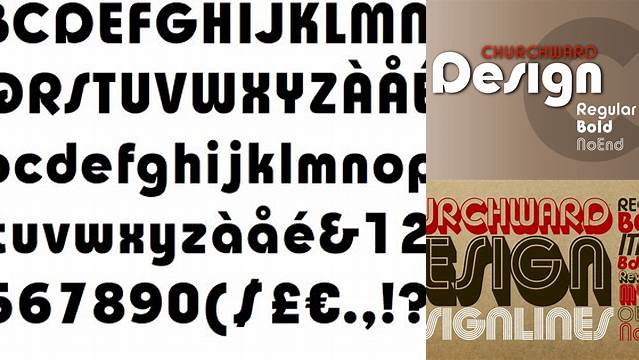
Hey guys! Are you on the hunt for a font that's both bold and beautiful? Look no further! In this comprehensive guide, we're diving deep into the world of Churchward Design Bold font, exploring everything from its history and characteristics to where you can snag it for free and how to use it like a pro. So, buckle up and let's get started!
What is Churchward Design Bold Font?
Churchward Design Bold is more than just a font; it's a statement. This typeface, known for its strong, clean lines and distinctive character, is a favorite among designers for its versatility and readability. Whether you're working on branding, posters, or even web design, Churchward Design Bold can add a touch of elegance and authority to your projects. Its unique blend of classic and modern elements makes it a timeless choice for any creative endeavor. Think of it as that reliable friend who always looks good, no matter the occasion. This bold iteration amplifies its impact, making it perfect for headlines and titles that need to grab attention. The robust letterforms ensure clarity even at a distance, which is crucial for effective communication.
History and Inspiration Behind Churchward Design Bold
The story behind any font often adds to its allure, and Churchward Design Bold is no exception. Understanding the font's origins can give you a deeper appreciation for its design and how to best use it. This typeface has roots in a rich heritage, drawing inspiration from both traditional calligraphy and modern design principles. The font's creator meticulously crafted each letter to ensure a harmonious balance between form and function. Knowing this, you can better understand why it has such a timeless appeal. It’s not just about aesthetics; it’s about the craftsmanship and the vision that went into its creation. Imagine the countless hours spent perfecting each curve and line – that dedication is what makes Churchward Design Bold so special.
Key Characteristics of the Churchward Design Bold Font
So, what exactly makes Churchward Design Bold stand out from the crowd? Let's break down its key characteristics. One of the most notable features is its boldness, which lends a commanding presence to any text. The clean lines and sharp edges provide a modern feel, while subtle curves add a touch of sophistication. This font is designed for maximum readability, ensuring that your message comes across loud and clear. The consistent letter spacing and balanced proportions contribute to its overall harmony, making it a pleasure to read. Think of it as a well-tailored suit – everything fits perfectly, creating a polished and professional look. Whether you're designing a logo or writing a headline, Churchward Design Bold's distinct personality will make your words shine.
Churchward Design Bold vs. Other Bold Fonts
In the vast sea of bold fonts, how does Churchward Design Bold stack up against the competition? It's essential to understand its unique strengths to make the best choice for your project. Many bold fonts lean towards being either overly aggressive or too generic, but Churchward Design Bold strikes a perfect balance. Its distinctive character sets it apart from standard bold fonts, offering a unique blend of elegance and power. Compared to fonts like Arial Bold or Helvetica Bold, Churchward Design Bold has a more refined and sophisticated feel. It doesn't just shout; it speaks with authority and style. Consider it the difference between a simple handshake and a warm embrace – both are greetings, but one leaves a more lasting impression.
Unique Features That Set Churchward Design Bold Apart
What are the specific features that make Churchward Design Bold a standout choice? For starters, its carefully crafted letterforms possess a subtle artistic flair that’s often missing in other bold fonts. The slight variations in stroke weight and the gentle curves give it a human touch, making it feel less mechanical and more organic. This is especially important for projects where you want to convey a sense of warmth and authenticity. Unlike some overly stylized fonts, Churchward Design Bold maintains excellent readability, even at smaller sizes. This makes it a versatile option for both print and digital media. Think of it as the perfect balance between form and function – beautiful to look at, but also practical and easy to use.
Comparison with Similar Bold Typefaces
Let's compare Churchward Design Bold with some of its closest relatives in the font family. Fonts like Futura Bold and Montserrat Bold share some similarities, but Churchward Design Bold has its own unique personality. While Futura Bold is known for its geometric precision, Churchward Design Bold has a slightly softer, more humanist feel. Montserrat Bold, with its modern and urban vibe, is a great choice for contemporary designs, but Churchward Design Bold offers a more timeless appeal. The differences lie in the details – the subtle curves, the stroke weight variations, and the overall balance of the letterforms. These nuances are what give Churchward Design Bold its distinct character and make it a favorite among designers who appreciate the finer things.
The Enduring Appeal of Churchward Design Bold
Churchward Design Bold has an enduring appeal that transcends trends and fads. Its timeless design, balanced proportions, and distinct character make it a font that will continue to be relevant for years to come. Whether you're designing for print or digital media, Churchward Design Bold is a reliable choice that will help you communicate your message with style and authority. Thanks for joining us on this journey into the world of Churchward Design Bold. Happy designing!